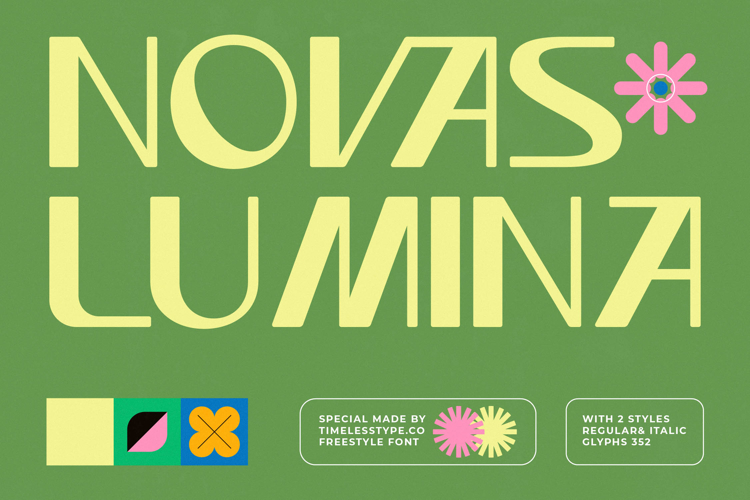
Novas Lumina - Freestyle Font
The Novas Lumina Typeface is a freestyle modern display font that radiates creativity, boldness, and retro-futuristic charm. With 2 styles (regular & italic) and a total of 352 glyphs, this typeface offers designers freedom to experiment with dynamic, geometric forms that stand out in both playful and professional contexts. Its sleek, angular cuts and flowing linearity create a contemporary aesthetic, while subtle retro undertones bring a nostalgic warmth. Novas Lumina is crafted to be expressive and flexible, making it perfect for projects that aim to be unique, vibrant, and memorable.
This font works exceptionally well in editorial and lifestyle design, elevating magazine spreads, feature titles, and poster layouts with its unconventional style. Its versatility allows designers to explore distinctive typographic compositions that demand attention.